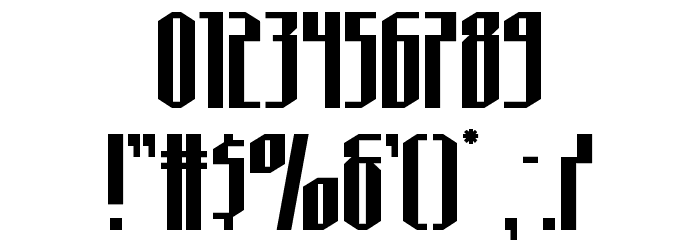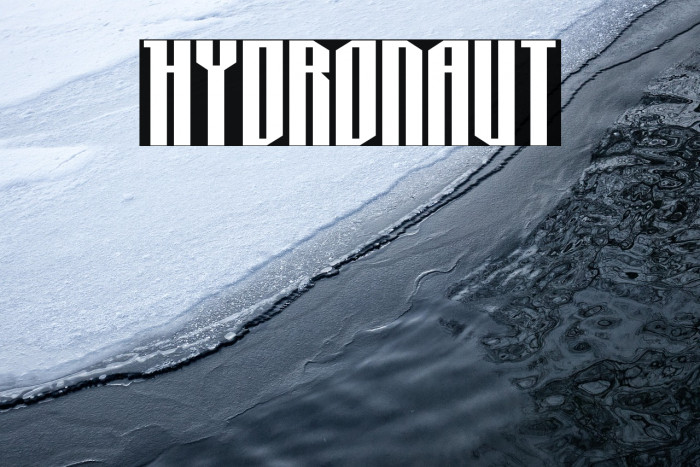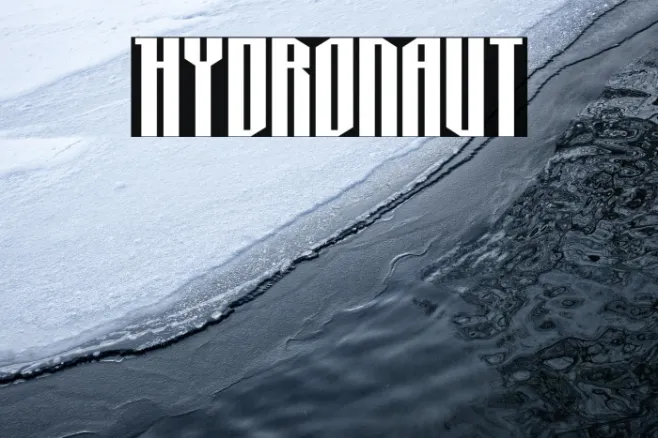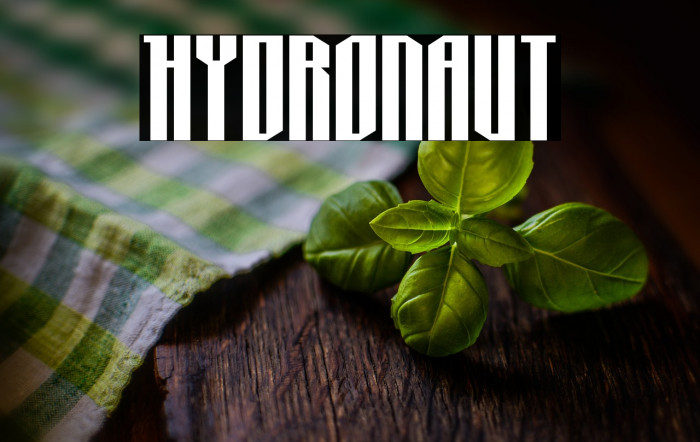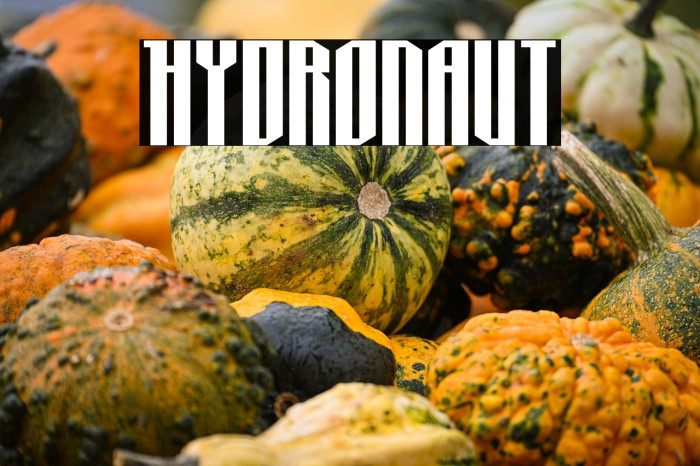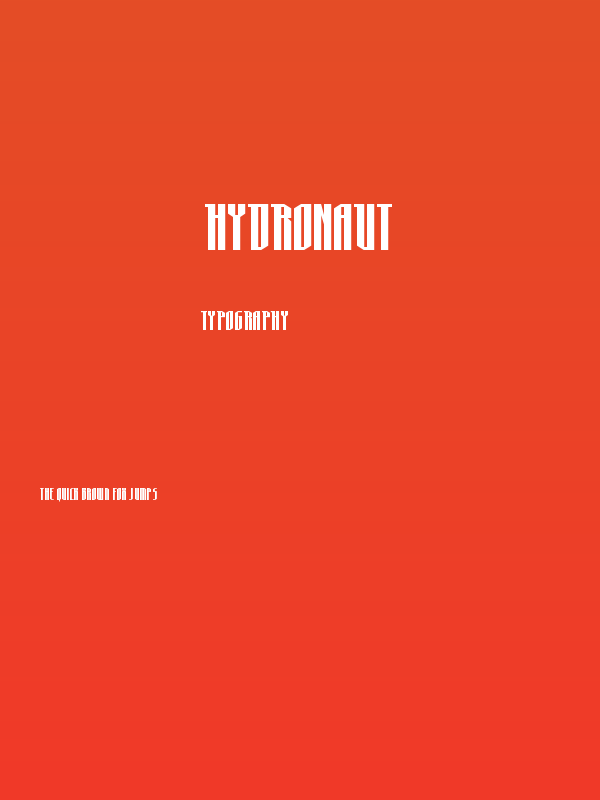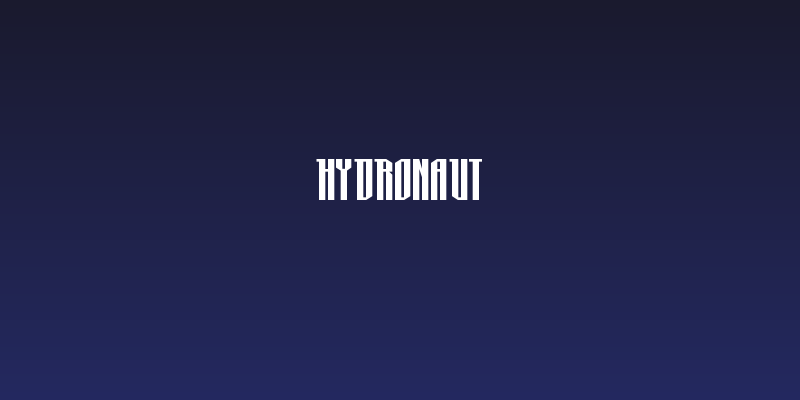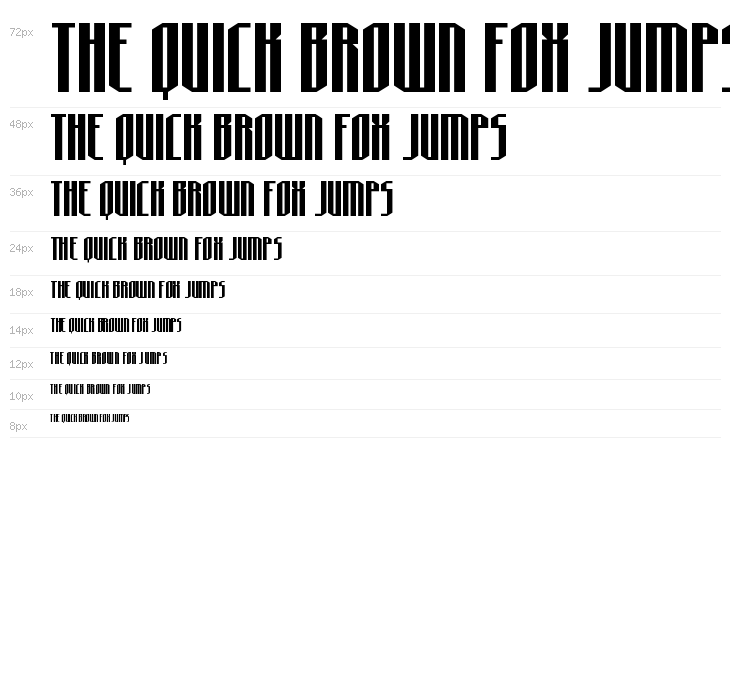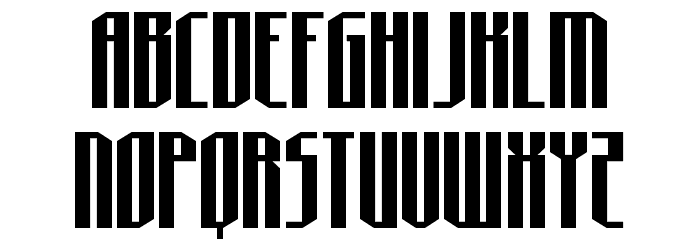
Hydronaut Font
Hydronaut Description
This font features a bold and geometric design, characterized by its tall, narrow letters with sharp angles and clean lines. The uppercase letters are particularly striking, with a futuristic and industrial feel. The numbers and special characters maintain the same bold and angular style, ensuring consistency across all characters. The font's unique appearance makes it stand out, suitable for projects that require a strong visual impact.
| Proposed Projects | Ideal for use in sci-fi themed designs, posters, logos, and branding that require a modern and bold aesthetic. |